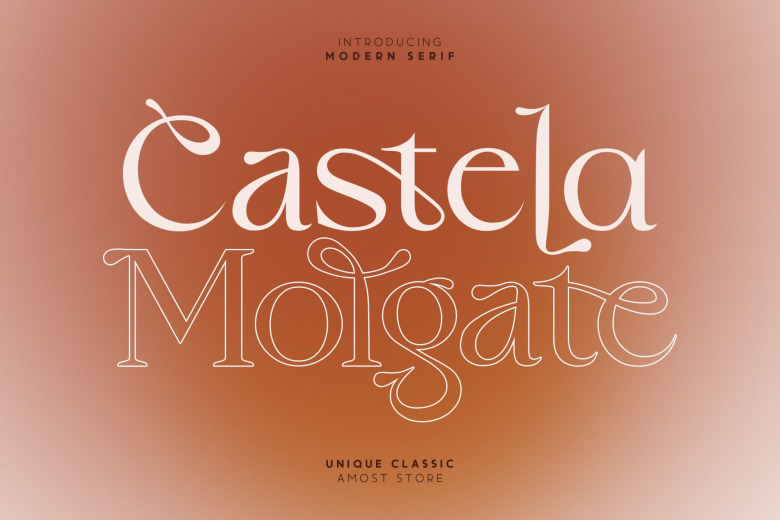
Castela Molgate Font
Castela Molgate Typeface A classic serif based on ancient proportions. Regardless of what it is, this one in your font collection will instantly become an asset because of its versatility to any output.
Castela Molgate Serif Font